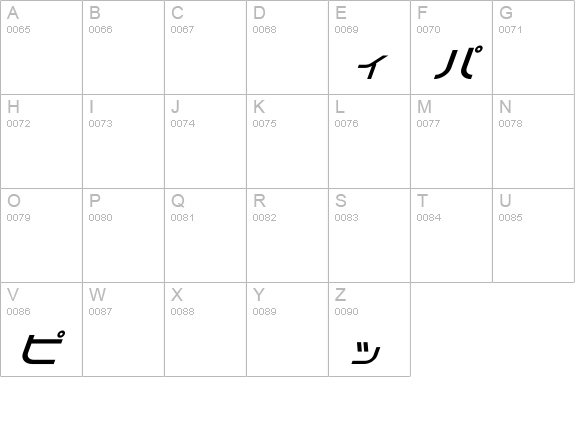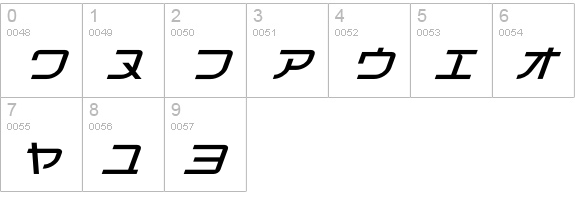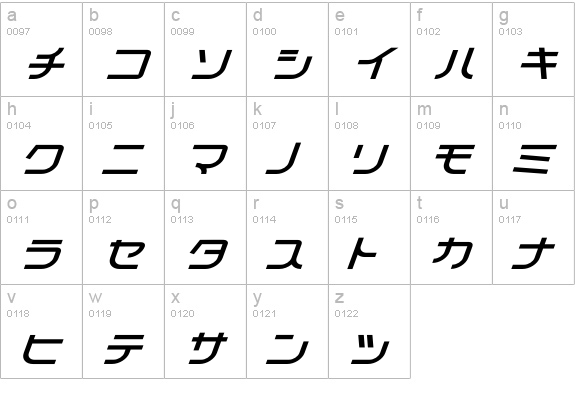
Lemonade-Oblique is a distinctive, italic variant in the Lemonade typeface family \xE2\x80\x94 well suited to design and typography projects.
Introducing Lemonade-Oblique font, a visually captivating typeface designed to add a touch of playfulness and elegance to your creative projects. With its unique and vibrant letterforms, Lemonade-Oblique exudes a sense of youthful energy and modern sophistication. Each carefully crafted character of this font showcases a delightful combination of smooth curves and subtle slant, creating a dynamic and engaging appearance. The oblique angle adds a sense of movement and intrigue, making Lemonade-Oblique perfect for capturing attention and leaving a lasting impression. Whether you're designing eye-catching logos, striking headlines, or stylish invitations, Lemonade-Oblique will effortlessly elevate your designs to new heights. Its versatility allows it to be used in a wide range of contexts, from bold and impactful designs to more delicate and refined creations. But what makes Lemonade-Oblique even more appealing is that it is freely available to download at FontsMarket.com. Yes, you heard it right – this captivating font can be yours without any cost. Now you can unleash your creativity without any limitations, as Lemonade-Oblique empowers you to create stunning designs without breaking the bank. So why wait? Embrace the refreshing taste of Lemonade-Oblique font and infuse your designs with a burst of energy and style. Download it today from FontsMarket.com and make your creations stand out from the crowd. With Lemonade-Oblique, the possibilities are endless, and the best part is, it's all for free.